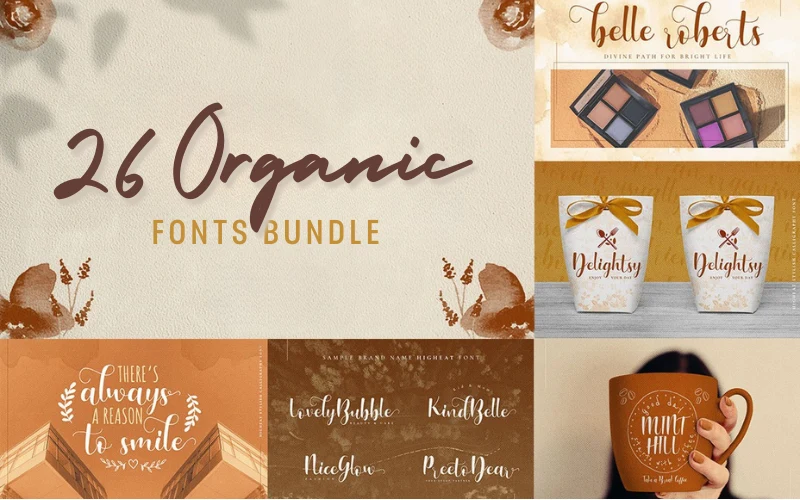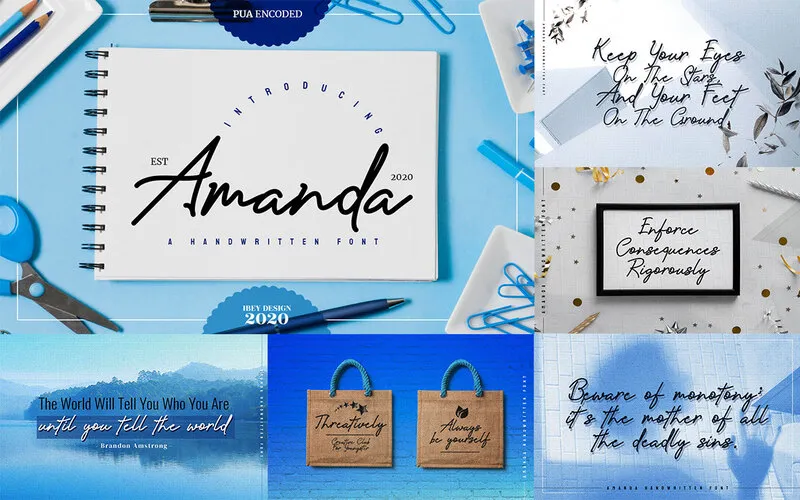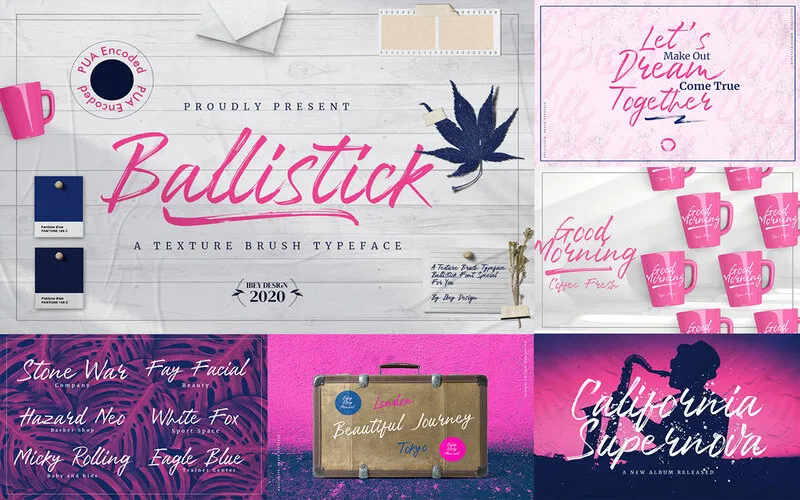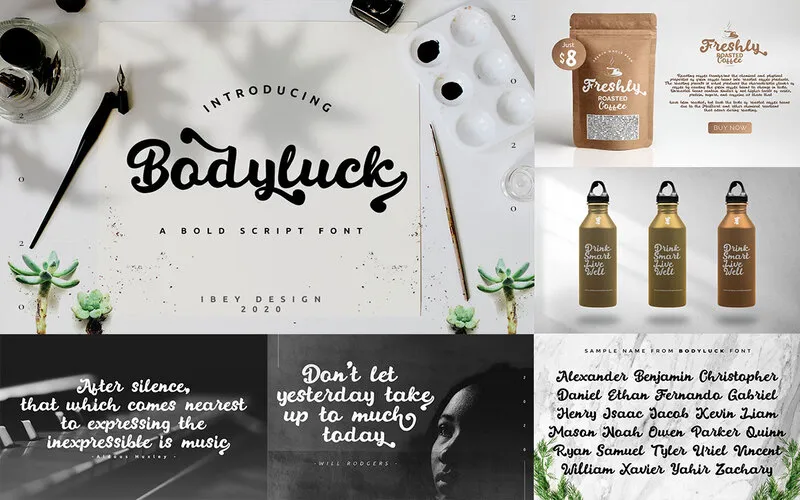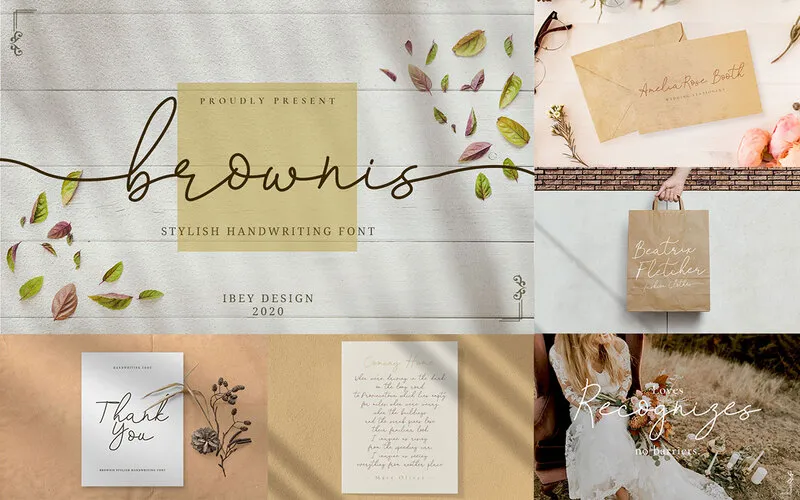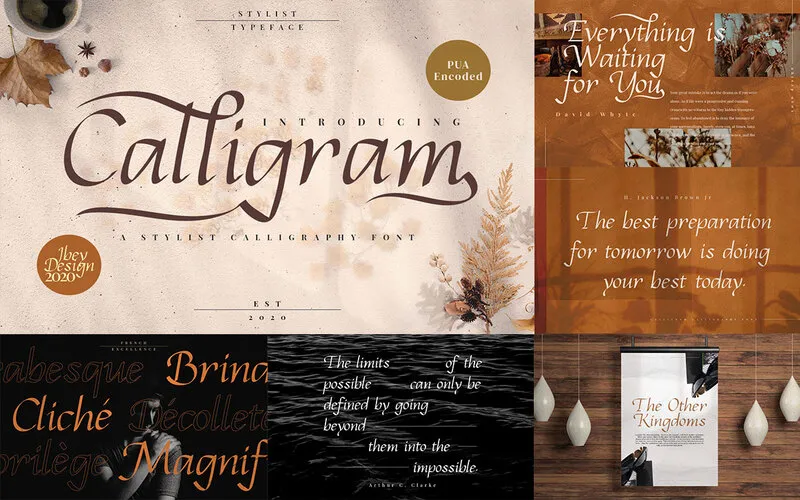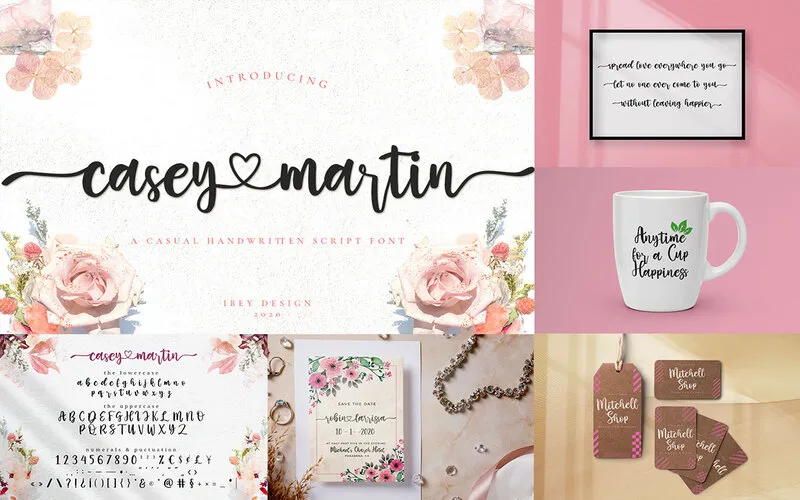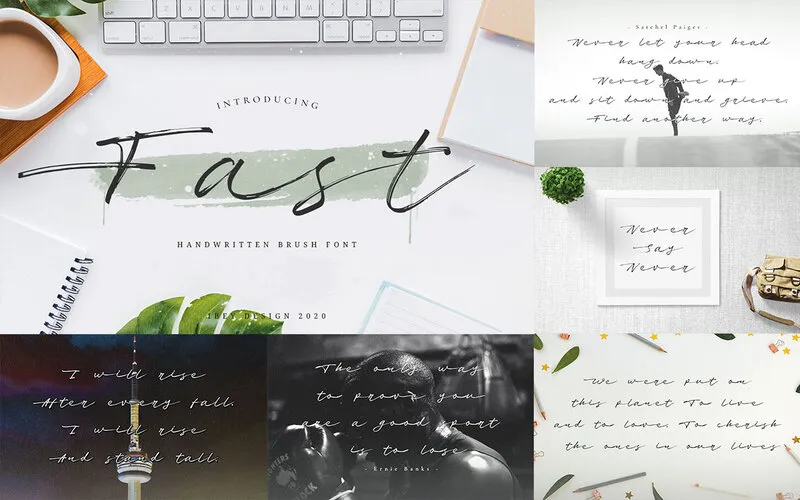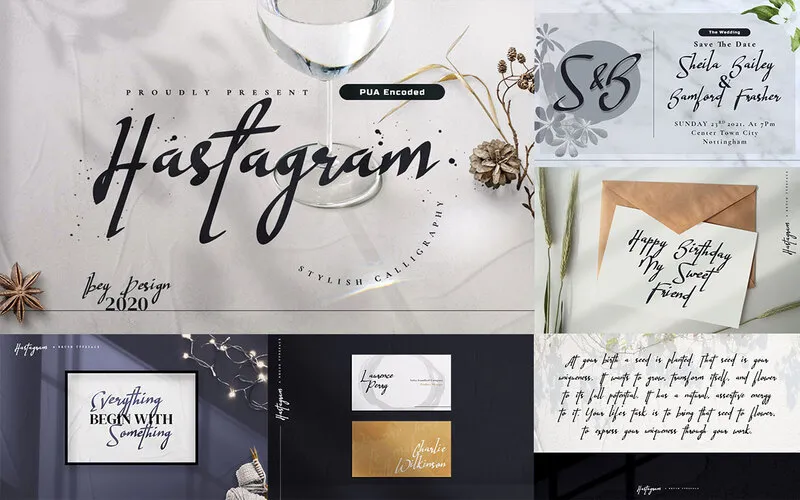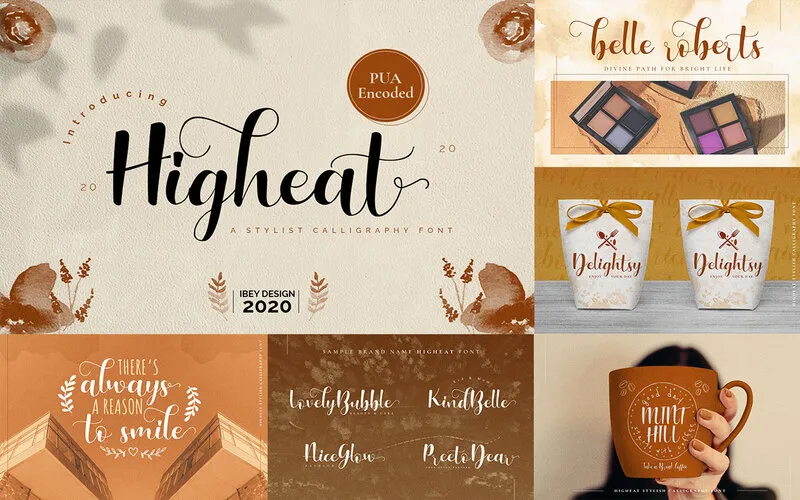
• 26 Modern organic fonts
• Includes ligatures & swashes
26 Organic Fonts Bundle
These fonts are categorized in monoline, calligraphy, and script fonts, which support font types like:
• Brush
• Handwritten
• Modern
And special characters like :
• Alternates
• Glyphs
• Ligatures
• Swashes
• Font Styles: Calligraphy, Monoline & Script.
• Types of fonts included – Brush, Handwritten, & Modern.
• Special characters supported by the fonts – Ligatures, Swashes, Alternates & Glyphs.
A Preview of the Organic Fonts Bundle:
Amanda Font
'Amanda' handwritten Font and its different uses in designs
Ballistick Font
Ballistick font Font and its different uses in designs
BlackJacky Font
Black Jacky bold script Font and its different uses in designs
Bodyluck Font
Bodyluck bold script Font and its different uses in designs
Brownis Font
Brownis Font Written Font and its different uses in designs
Calligram Font
Calligram calligraphy Font and its different uses in designs
CaseyMartin Font
Casey Martin handwritten Font and its different uses in designs
Fast Font
Fast handwritten brush Font and its different uses in designs
Hastagram Font
Hastagram calligraphy Font and its different uses in designs
Higheat Font
Higheat calligraphy Font and its different uses in designs
Khalid Font
Khalid handwritten Font and its different uses in designs
Lamberto Font
Lamberto monoline font Font and its different uses in designs
LovelyLove Font
Lovely Love handwritten Font and its different uses in designs
Otherside Font
Otherside stylish handwriting Font and its different uses in designs
Playstick Font
Playstick bold script Font and its different uses in designs
Ravimon Font
Ravimon bold script Font and its different uses in designs
RightHand Font
Righthand monoline Font and its different uses in designs
RockyRun Font
Rocky Run bold script Font and its different uses in designs
Rollingstand Font
Rollingstand modern brush Font and its different uses in designs
Shaking Font
Shaking organic calligraphy Font and its different uses in designs
Slimpick Font
Slimpick handwritten brush font and its different uses in designs
Something Font
Something Calligraphy Font and its different uses in designs
StayHome Font
Stay Home Hand Written Font and its different uses in designs
StevenAnderson Font
Steven Anderson Written Font and its different uses in designs
Vanilla Font
Vanilla Written Font and its different uses in designs